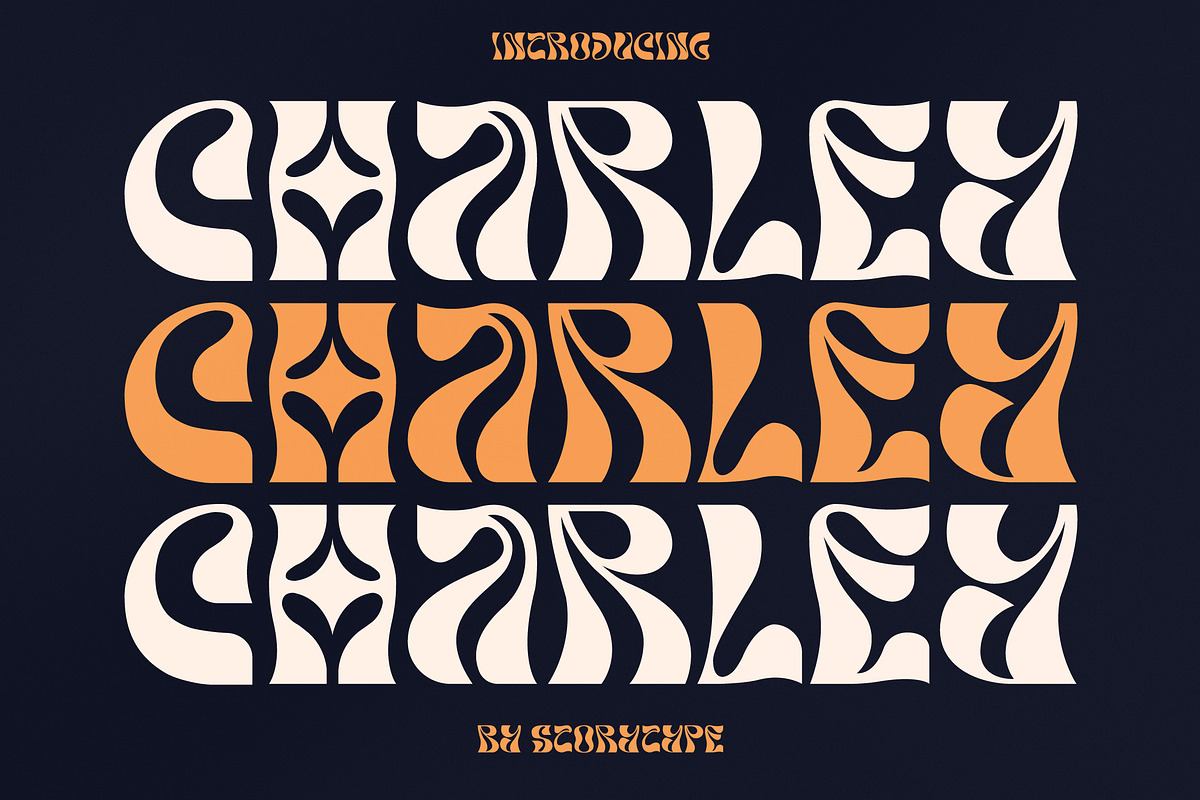
Charley Unique Display Font Free Download is a bold and artistic typeface that stands out with its quirky shapes and eye-catching character. Designed for maximum visual impact, Charley is perfect for creative branding, magazine headlines, fashion posters, album covers, and standout social media graphics. It brings a modern, playful twist to your typography while maintaining a stylish edge.
With its distinctive curves and unconventional structure, Charley turns any word into a statement. Whether you're crafting a logo or designing bold visual content, this font ensures your message is not only seen—but remembered.